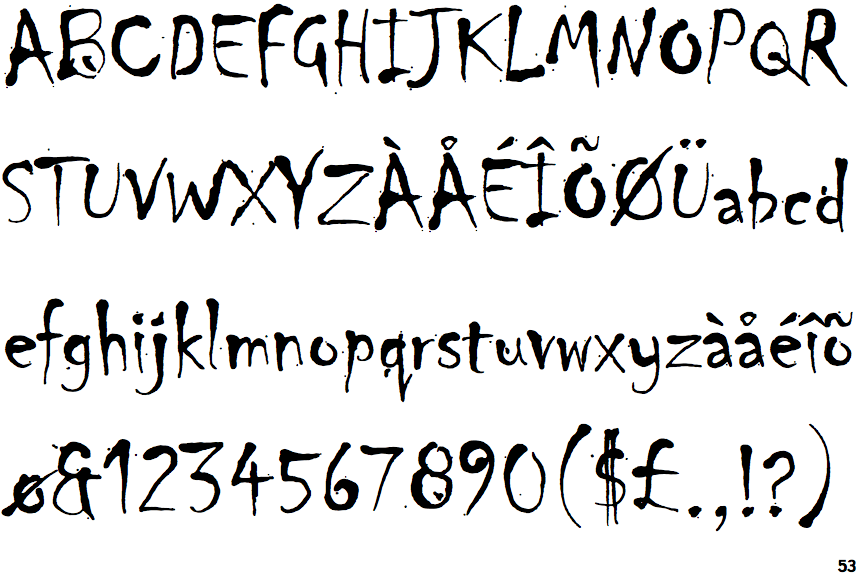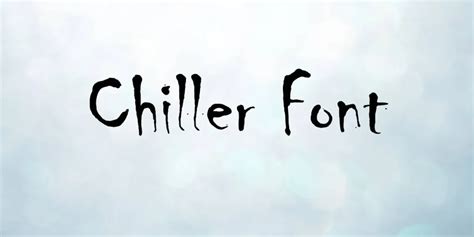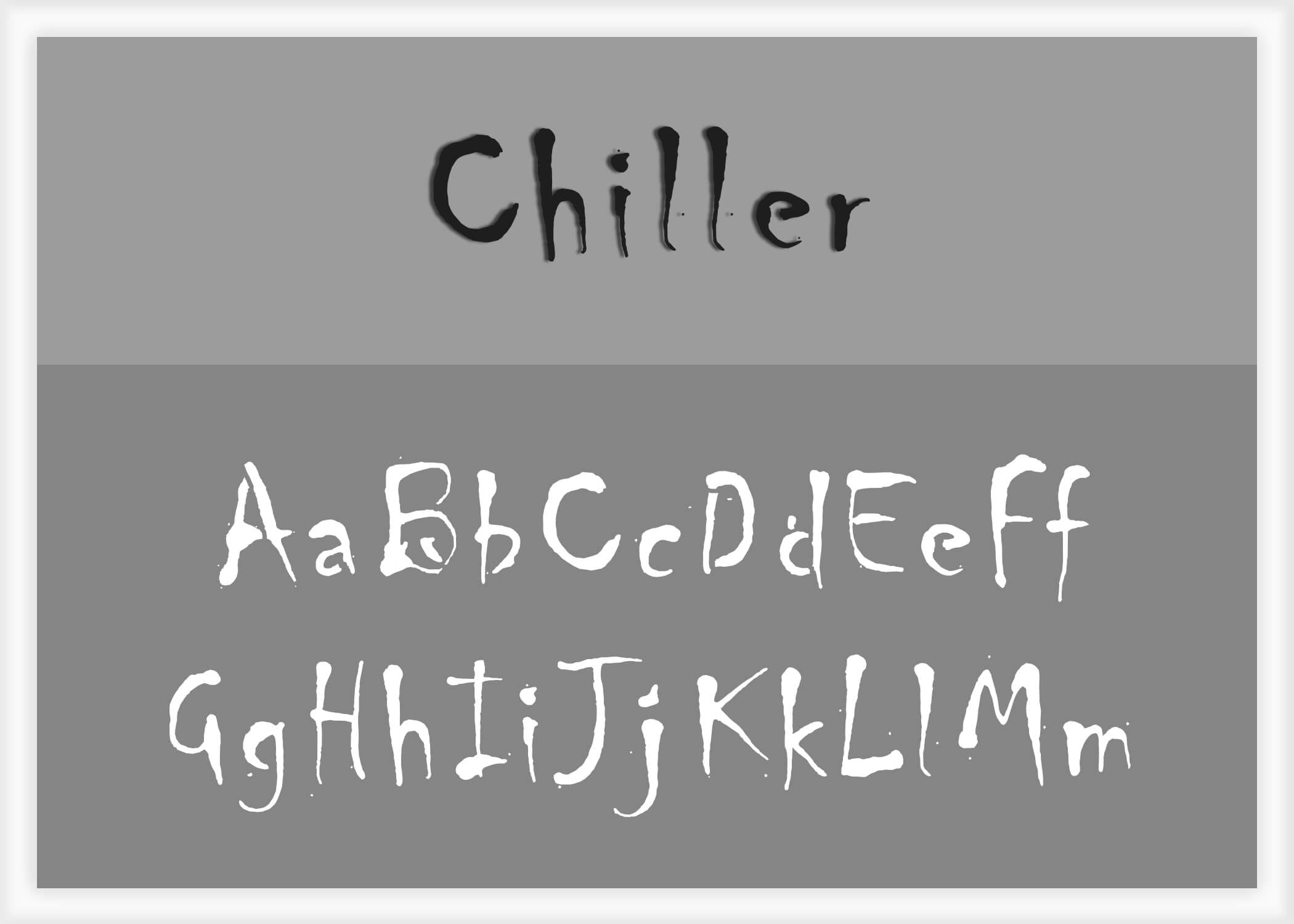
Chiller Handwritten Font
Introducing the chiller font family! Web chiller font free download. Designed by andrew smith in 1995. Chiller is the work of british designer andrew smith, a chaotic, reckless fun font. Web about chiller font family. Supports at least 56 languages (com / ot ttf).
Supports at least 56 languages (com / ot ttf). Web chiller font free download. Chiller is the work of british designer andrew smith, a chaotic, reckless fun font. Introducing the chiller font family! Designed by andrew smith in 1995. Web about chiller font family. Supports at least 56 languages (com / ot ttf).